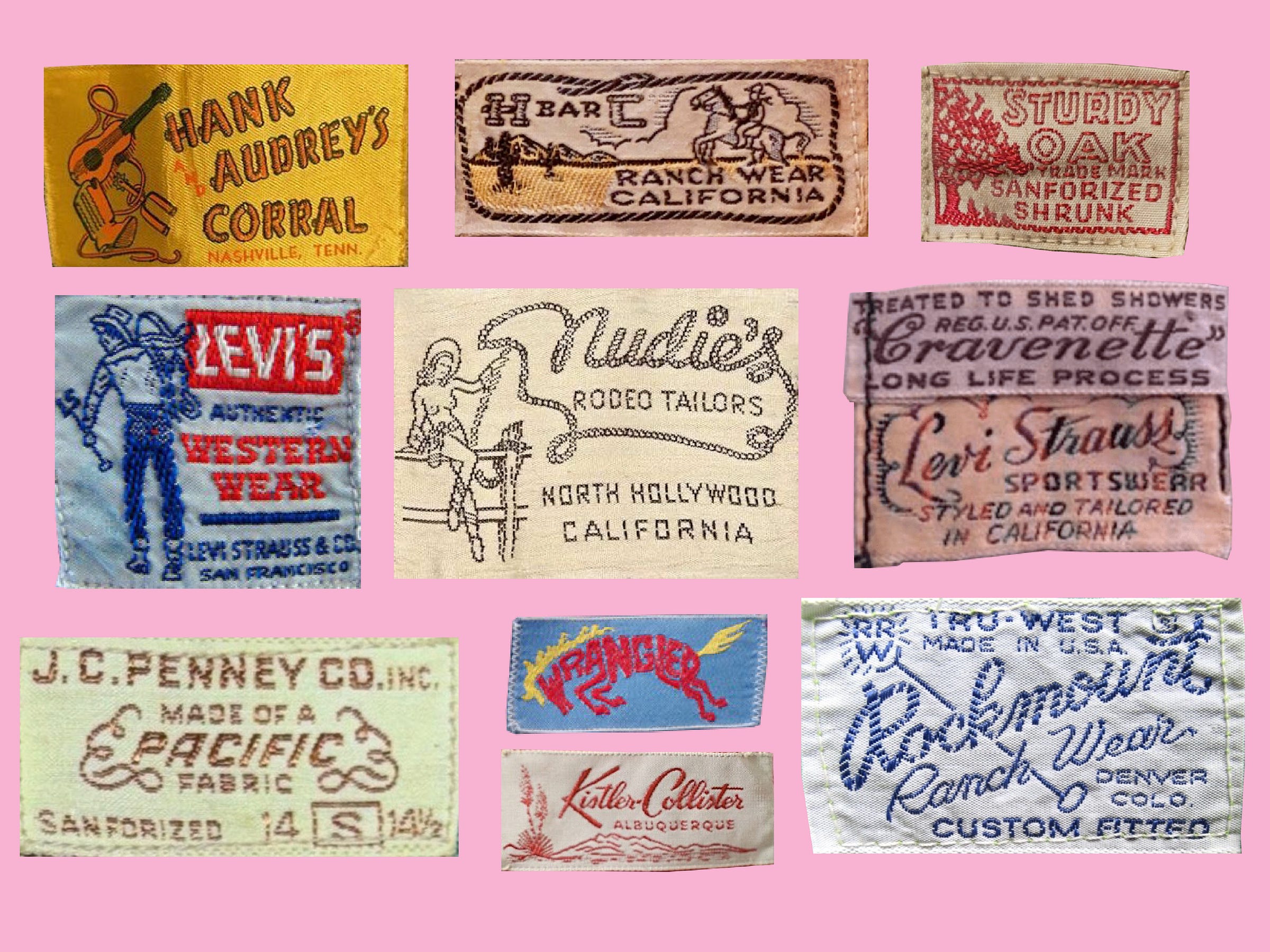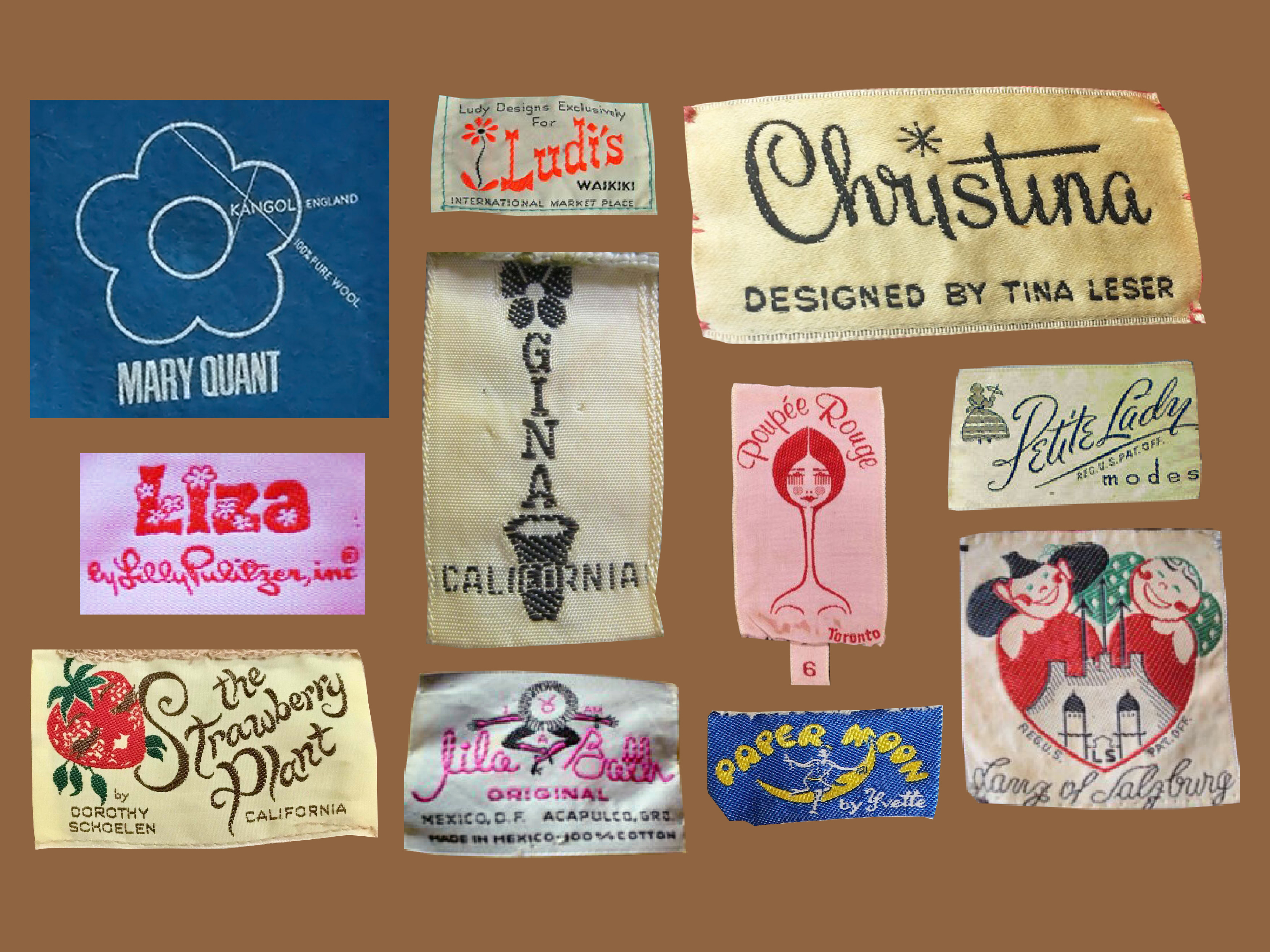
This month’s Fun Email™ is all about clothing labels. It’s no secret that I love clothes! In the past, I loved to shop but shopping is super unfun now because everything has become cheap and boring!! And don’t even get me started on the exploitation of workers and the devastation the clothing industry has caused the planet (I know, this email is supposed to be fun!)!
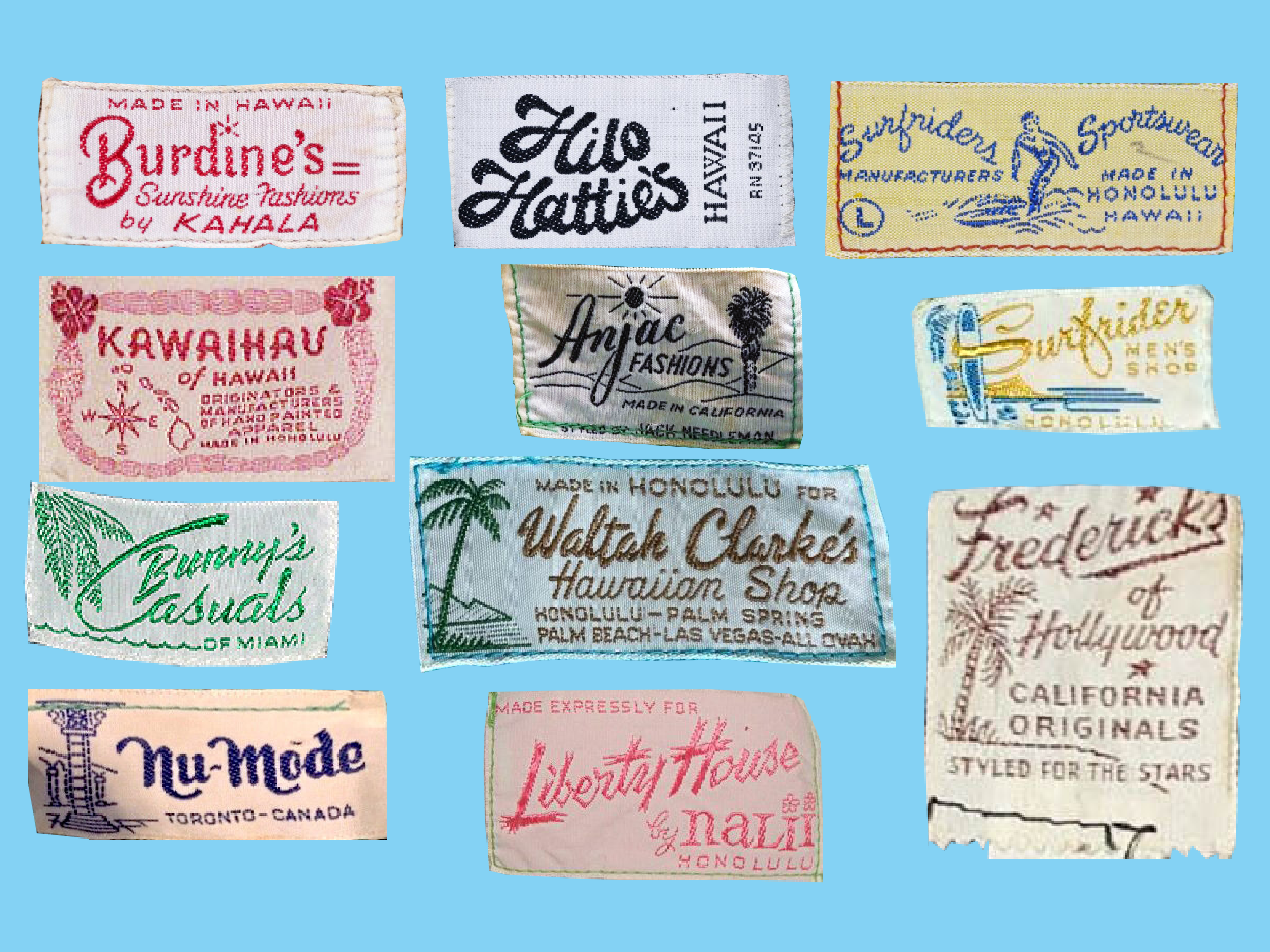
Today, we’re going to take a look back to when brands had personality/character/charm/etc. This email is proof of two things: First, that you can do a lot with a little and second, that sans serifs should be the accessories and not always the main event!! Let’s use some funky script typefaces, blackletter/medieval fonts, or just have lil mascots for brands again! Give me color! Give me joy! Give me life!!
Hank and Audrey’s Corral (1950s) | H Bar C (1940s) | Sears (1940s) | Nudie’s Rodeo Tailors (1950s) | Levi Strauss (1960s, 1930s) | J.C. Penney (1940s) | Wrangler (1970s) | Kistler-Collister (1950s) | Rockmount Ranch Wear (1980s)
Juniors By Jove (1970s) | Max Raab (1960s) | Marboré (1970s) | McGregor (1950s) | Key West Hand Prints (1970s) | Bob Mackie (1970s) | Enro (1950s) | Kennington (1960s) | London Fog (1960s) | Marshall & Snelgrove (1940s) | Arpeja (1960s)
Lettie Lee (1930s) | Beard & Co (1950s) | Hilton (1950s) | Jackpot (1980s) | Workers For Freedon (1986) | Zelda (1990s) | Hale-Niu (1966) | Hot Dog (1970s) | King Louie (1950s) | Original Champagne (1960s) | Green Bay Specialty Co (1940s) | Keith Scotland (1930s) | Tower Isle (1950s) | Zelda Wynn (1940s)
Pappagallo (1960s) | Schwestern Flöge (1910s) | Eva Gabor (1970s) | Holly’s Harp (1970s) | Victoria’s Secret (1977) | Miss Stella (1950s) | Koret of California (1940s)
Ruth McCullough (1950s) | Krist (1960s) | Gay Gibson (1930s) | Jeannette Alexander (1960s) | Lee Herman (1960s) | Pat Premo (1950s) | Hickey’s (1960s) | Eisenberg (1930s) | Bernetti (1940s) | Al Rosenthal’s (1950s) | Glentex (1940s) | Gunther Jaeckel (1950s) | Jean Desses (1950s) | Lilli Ann (1950s)
Frances Henaghan (1970s) | Cathy McGowan (1960s) | G. Girvin Seattle (1970s) | Vivienne Westwood (1981) | Victor Costa (1960s) | Norma Kamali (1980s) | Loopy (1970s) | Frederick Starke (1940s) | Young Elegants (1960s) | Kandahar Designs (1970s) | Lassie Junior (1970s)
Mary Quant (1960s) | Ludy Designs (1960s) | Tina Leser (1960s) | Lilly Pulitzer (1970s) | Poupée Rouge (1960s) | Petite Lady (1930s) | Susan Kosovic (1960s) | Dorothy Schoelen (1970s) | Lila Bath (1960s) | Yvette (1970s) | Lanz (1940s)
Harari (1990s) | Granny Takes A Trip (1970s) | Cole of California (1960s) | Michael Mott (1960s) | Betsey Johnson (1980s) | Martha Levine (1940s) | Peggy Moffit (2003) | Marion Donaldson (1970s) | Issey Miyake (1982)
Kahala (1950s) | Hilo Hattie (1970s) | Surfriders Sportswear (1950s) | Kawaihau (1950s) | Anjac Fashiosn (1960s) | Surfrider Men’s Shop (1960s) | Bunny’s Casuals (1950s) | Waltah Clarke (1950s) | Nu-Mode (1960s) | Liberty House (1960s) | Fredericks of Hollywood (1940s)